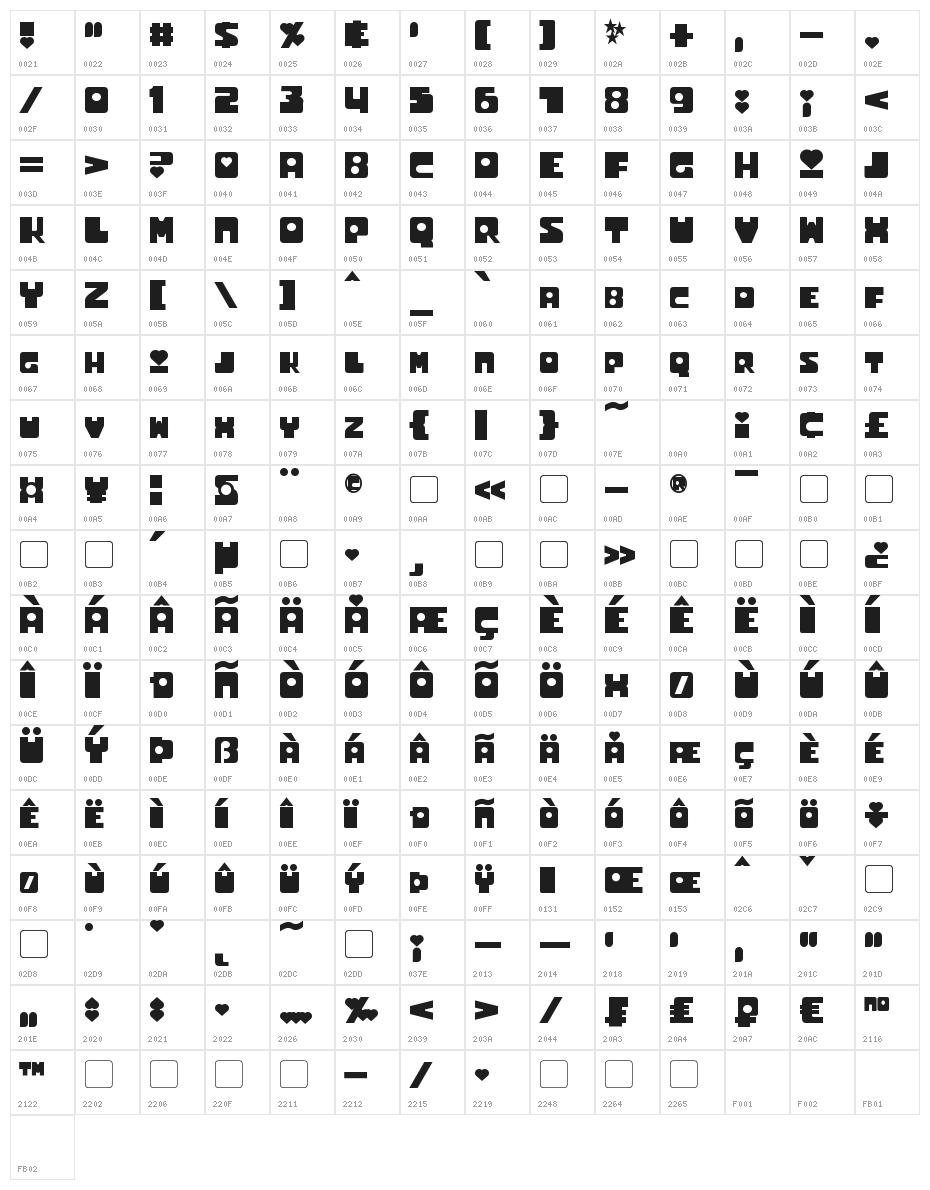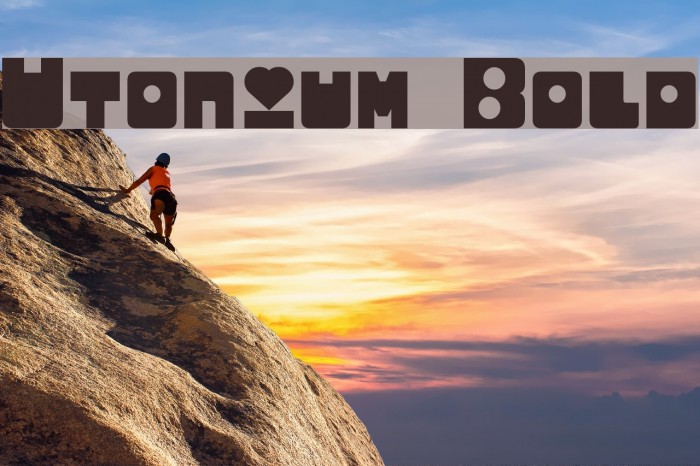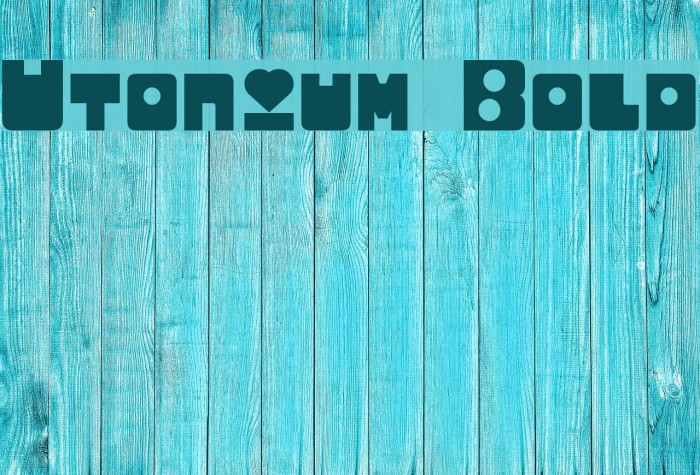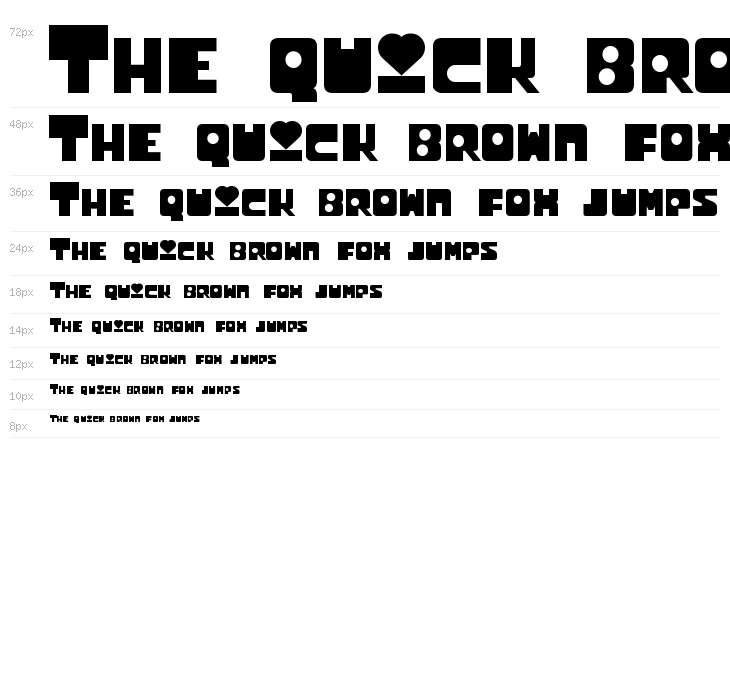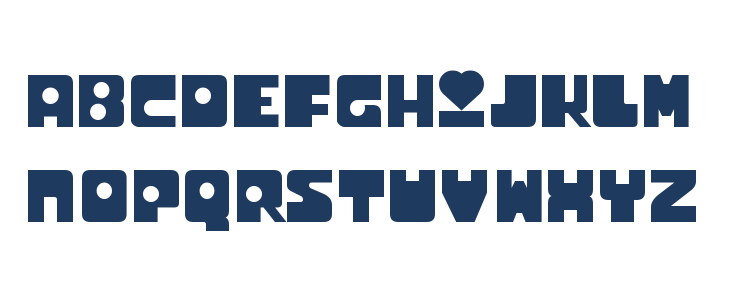
Utonium Bold Font
Utonium Bold Description
This bold and striking font features a unique and playful design with geometric shapes and a strong presence. Each character is crafted with a solid, block-like structure, incorporating heart motifs and angular cuts that add a whimsical touch. The uppercase and lowercase letters maintain a consistent weight, creating a cohesive look. Numbers and special characters follow the same bold style, ensuring uniformity across all text. The font's design is eye-catching and ideal for projects that require a fun and modern aesthetic.